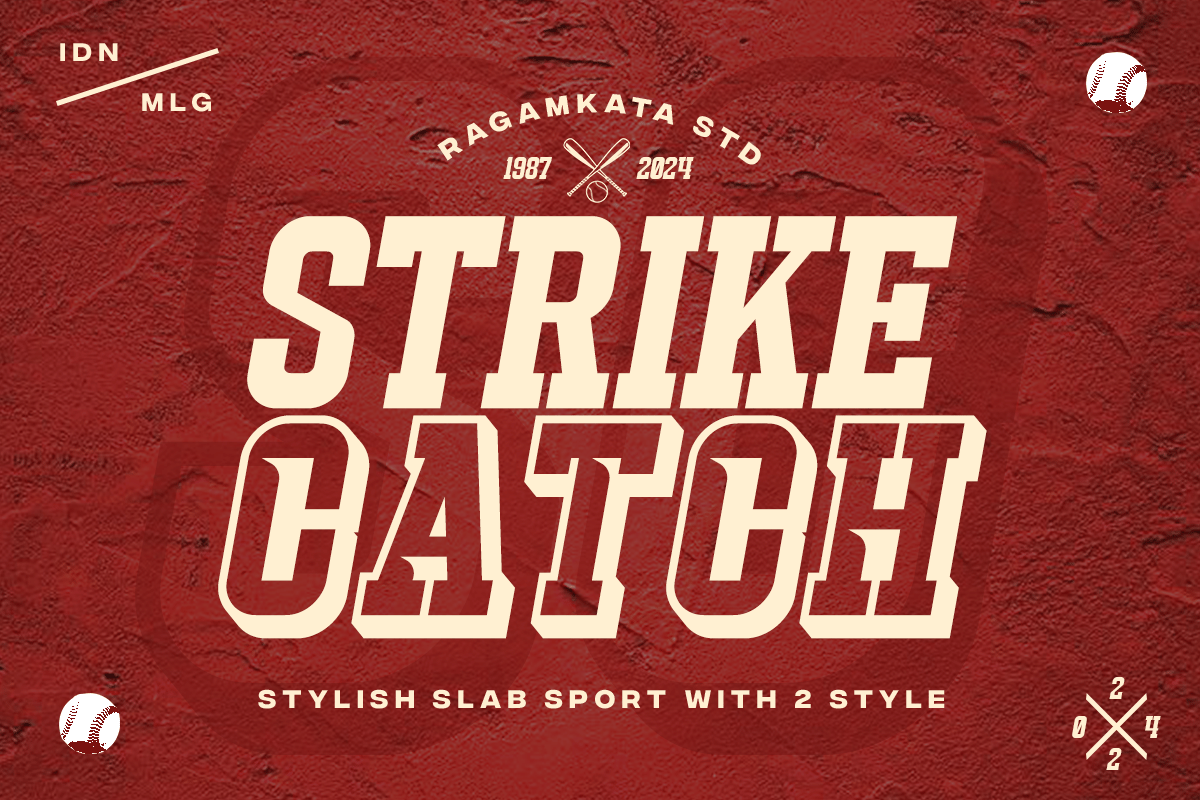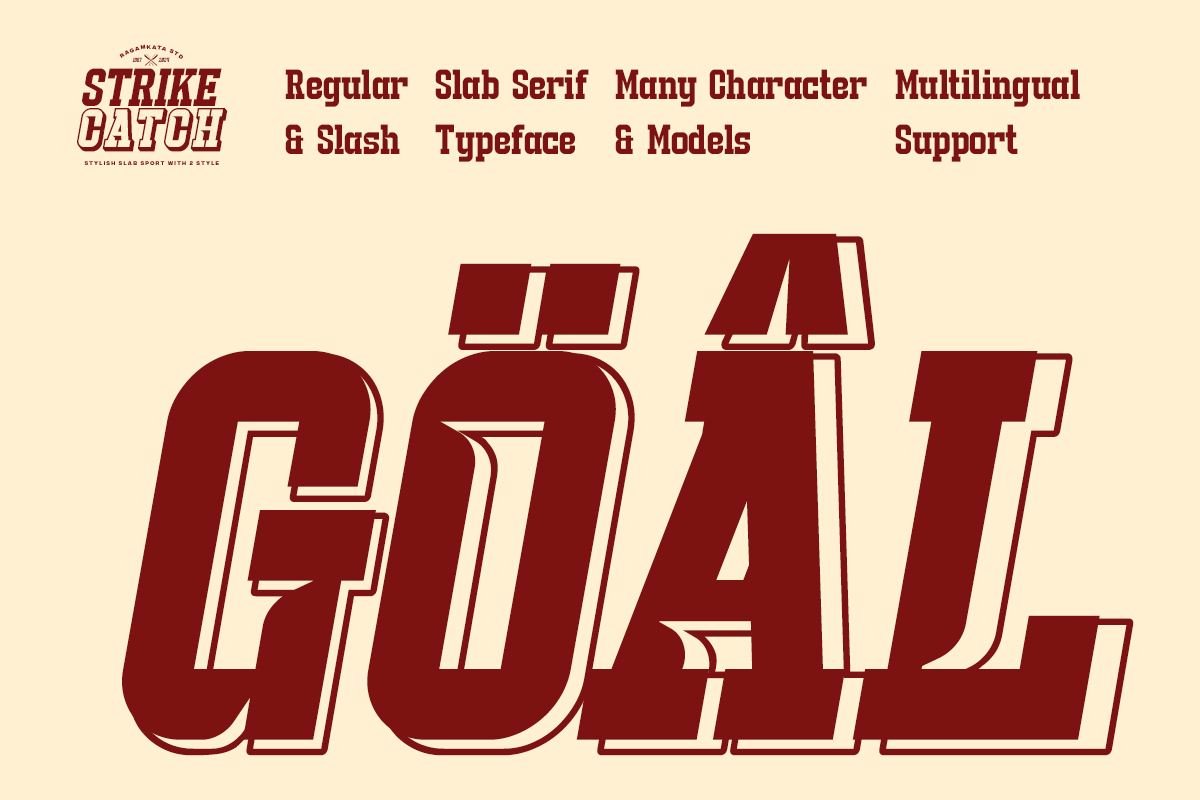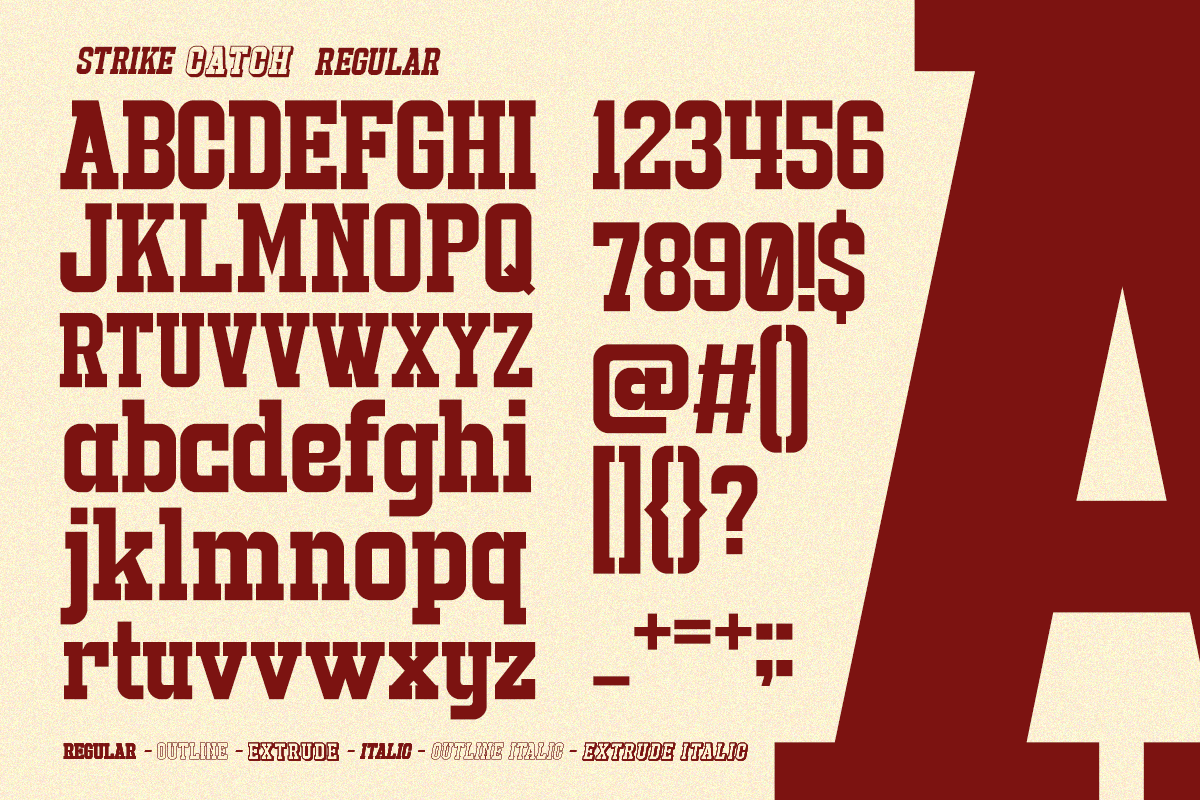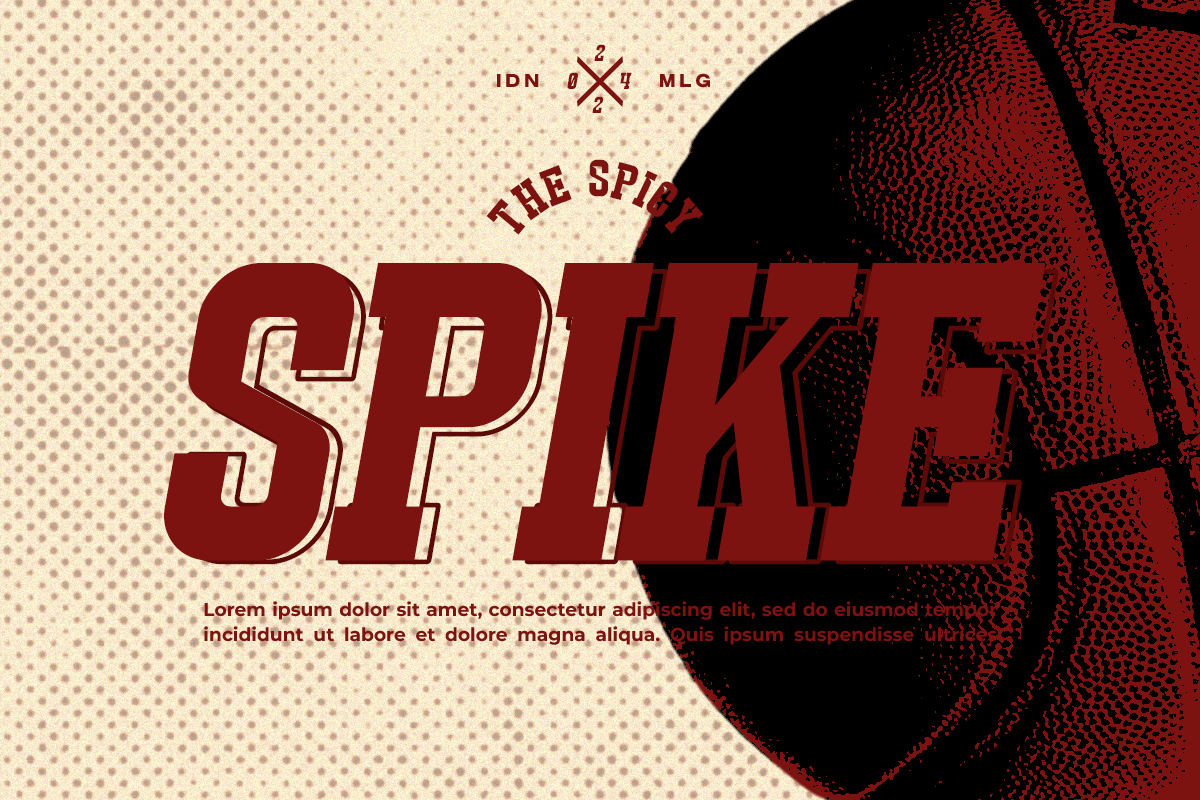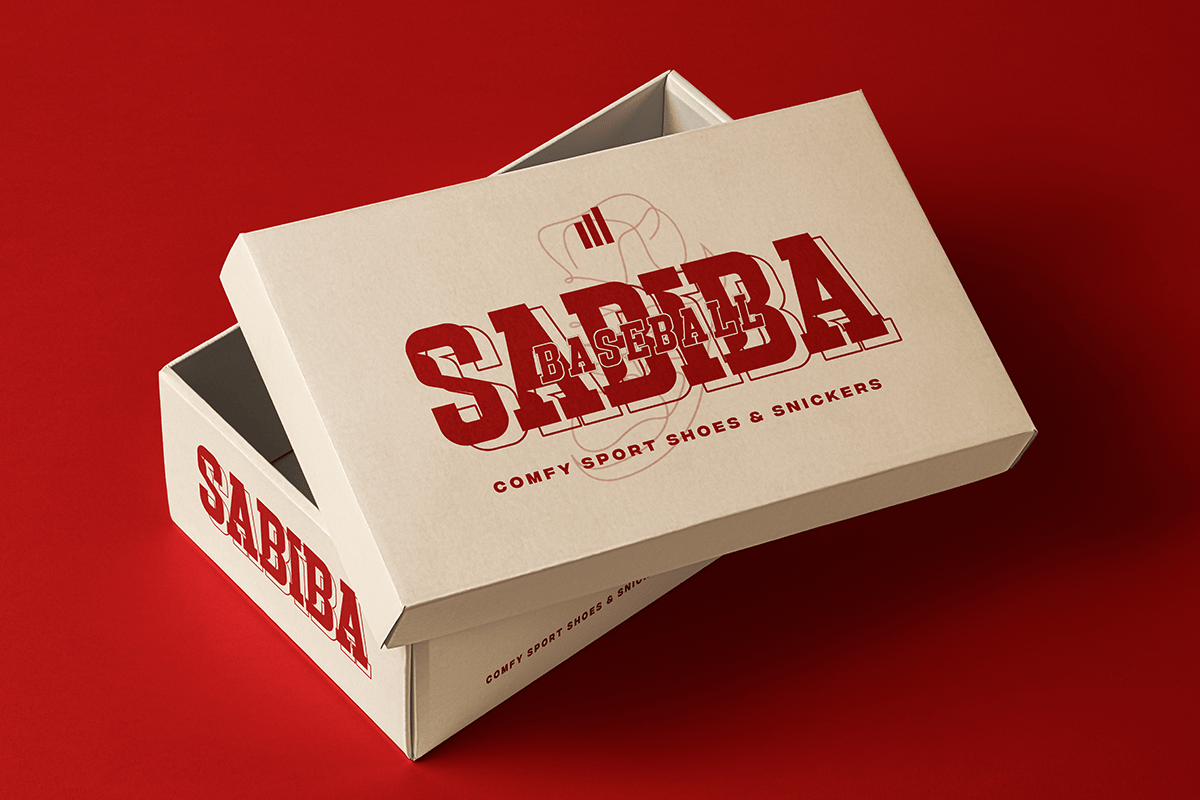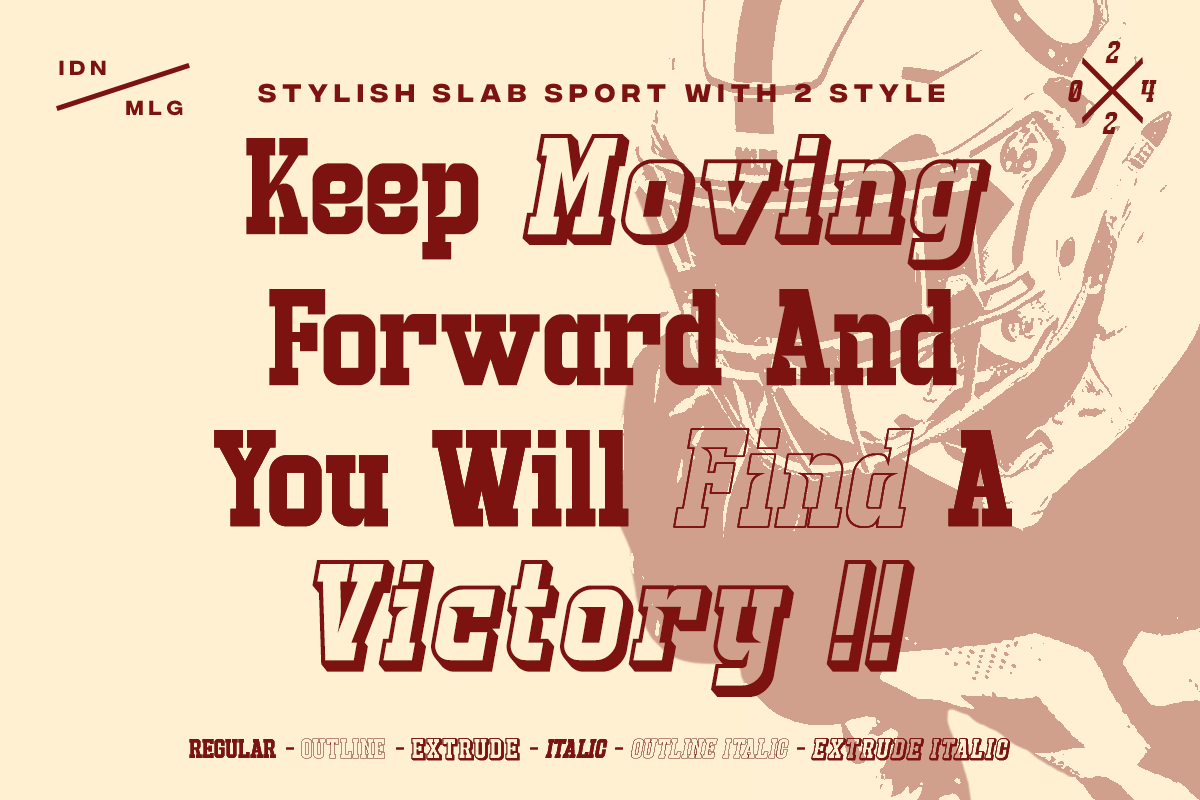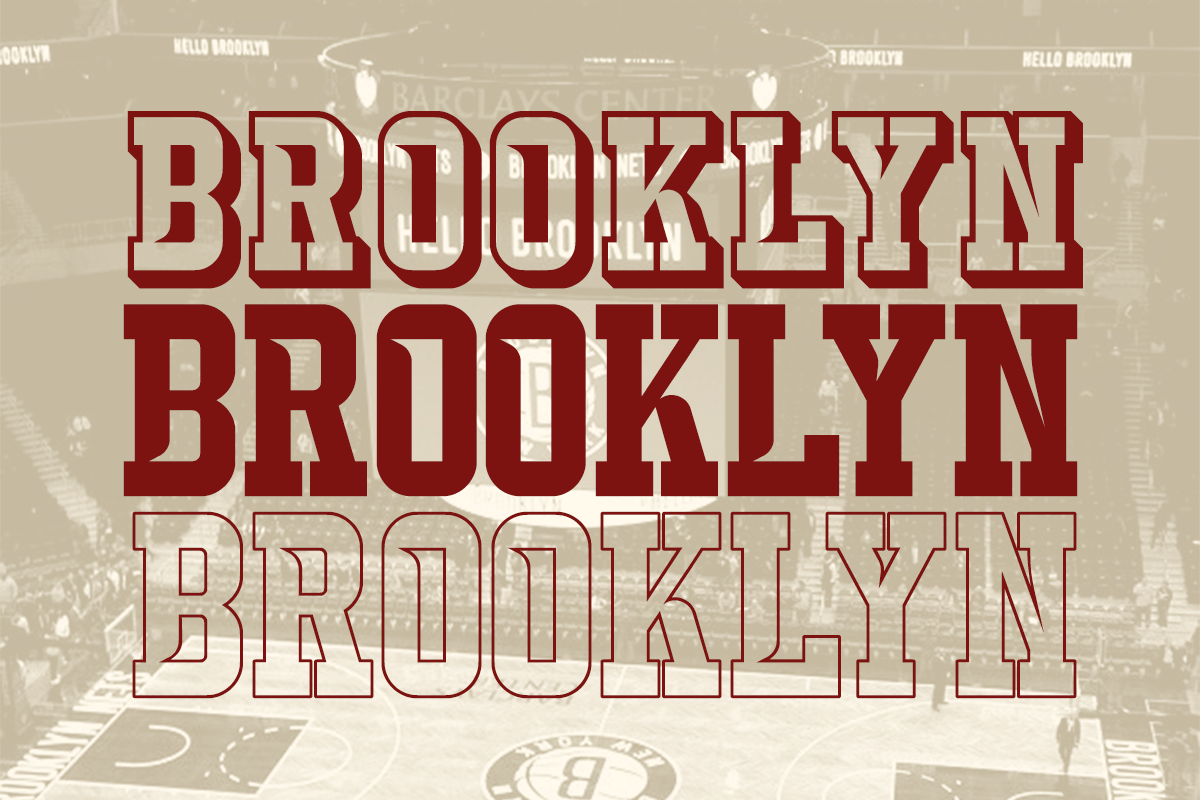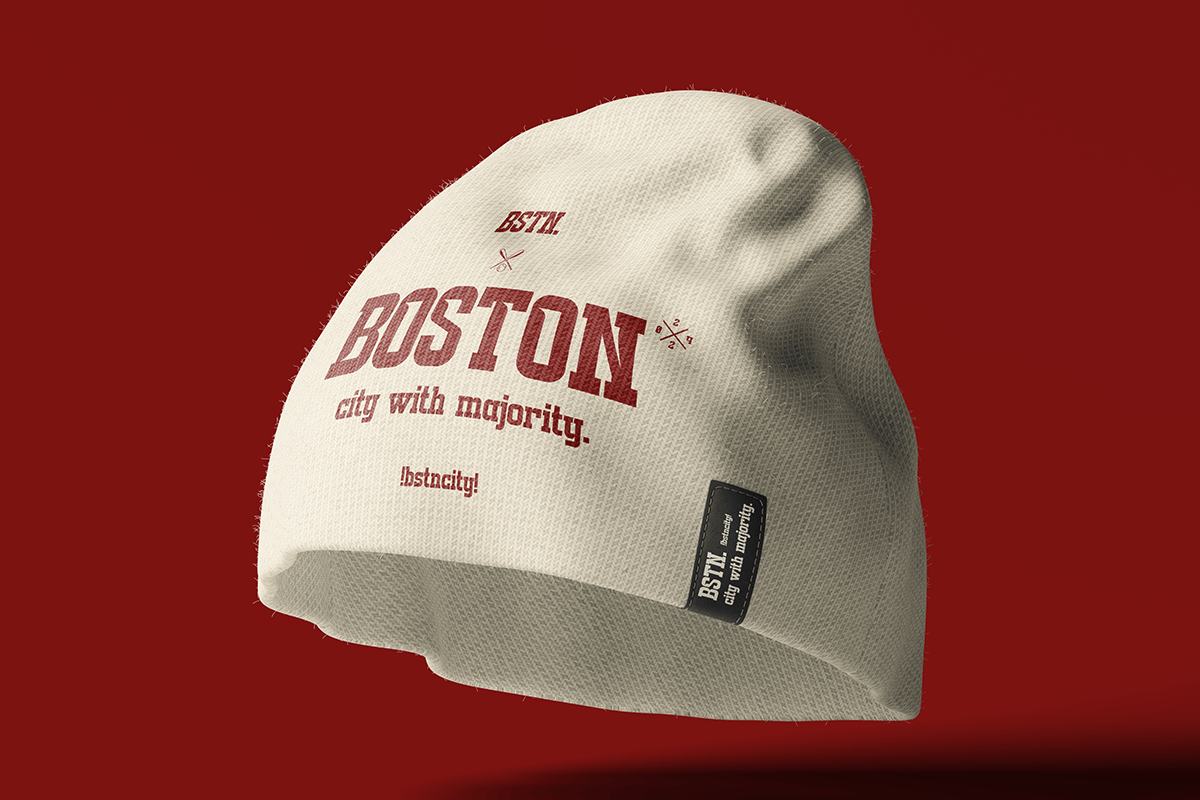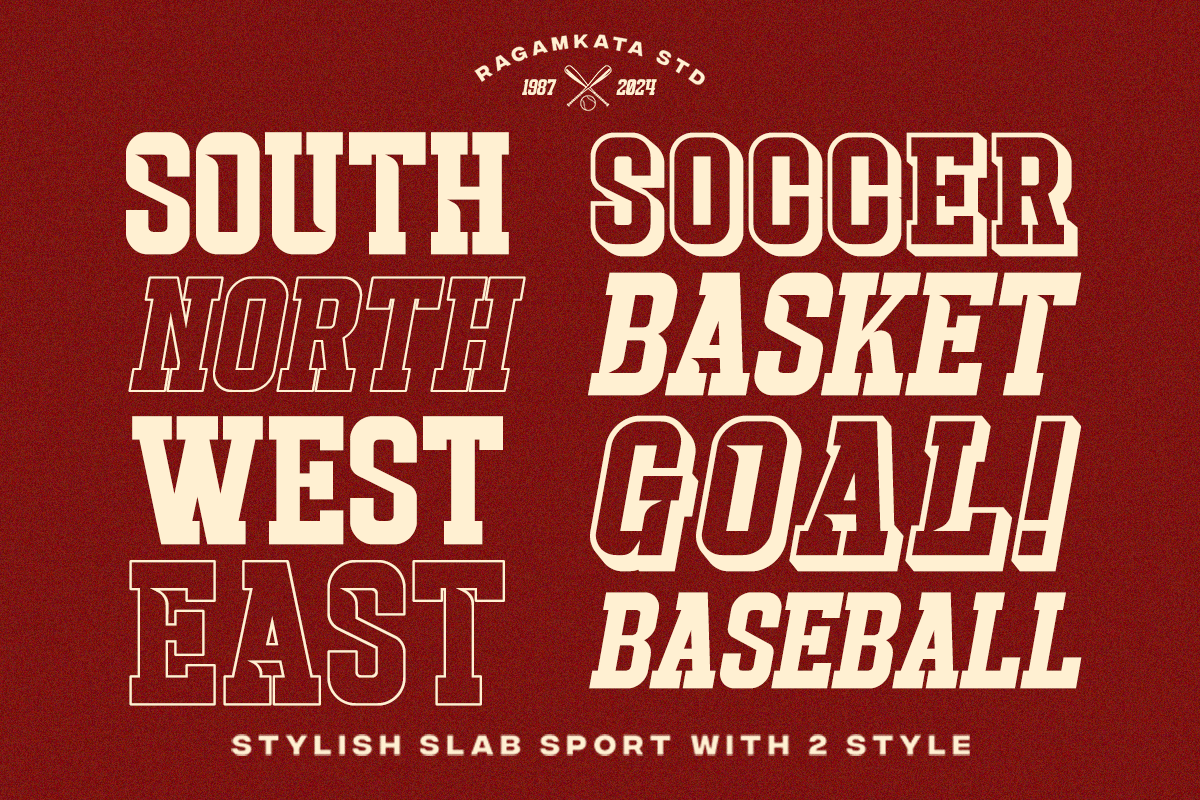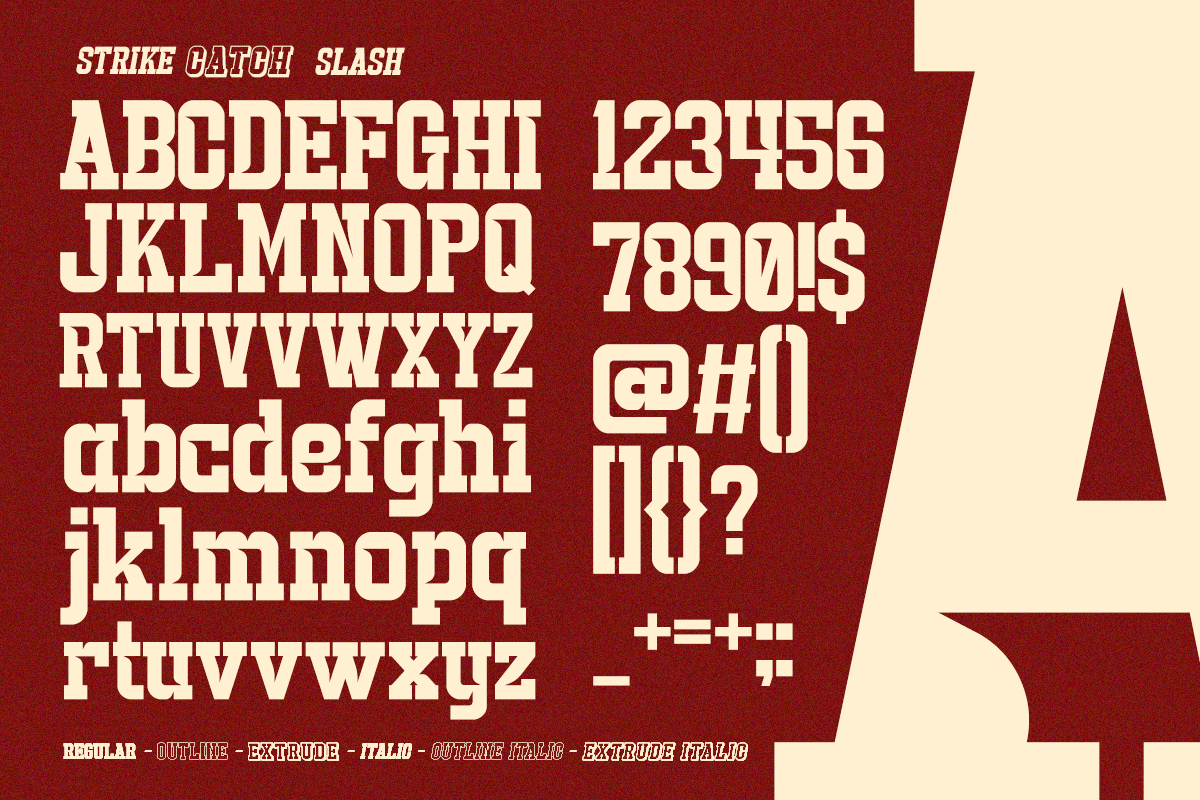
Strike Catch – 12 College Baseball Sport Font
Introducing Strike Catch, a stylish slab sport with 2 style that combines the power and speed of modern sports with the elegance of classic design. Perfect for sports headlines, logos, branding, and more, Strike Catch features 12 styles: Regular, Italic, Outline, Extrude, Italic Outline, Italic Extrude, Slash, Slash Italic, Slash Outline, Slash Extrude, Slash Italic Outline & Slash Italic Extrude. Its smooth curves, clear alternates, and modern aesthetics ensure readability and a dynamic presence.
Strike Catch is versatile and suitable for various projects, including invitations, magazines, product packaging, posters, and more. Ideal for personal projects, studios, corporate, and creative agencies, Strike Catch adds a powerful, attractive, and contemporary touch to any design.
- 12 unique styles: Regular, Italic, Outline, Extrude, Italic Outline, Italic Extrude, Slash, Slash Italic, Slash Outline, Slash Extrude, Slash Italic Outline & Slash Italic Extrude
- Strong, confident letterforms
- Unique Alternate Characters
- Punctuation & Number
Enhance your sports-themed designs with Strike Catch, the ultimate font for bold and impactful typography.